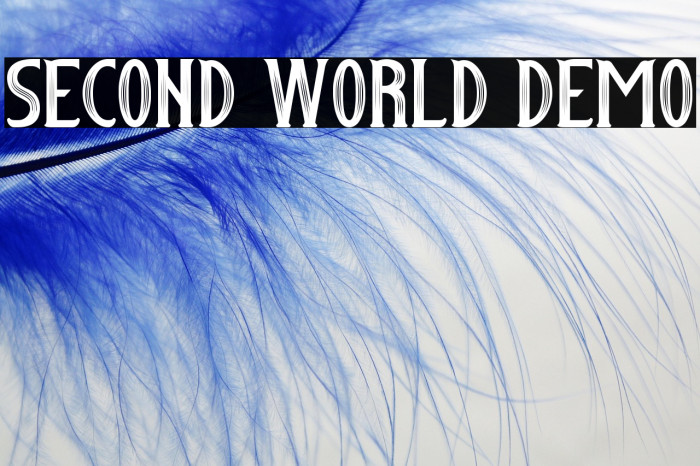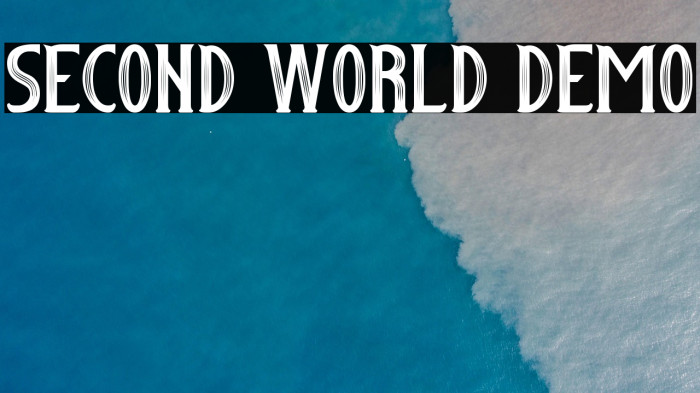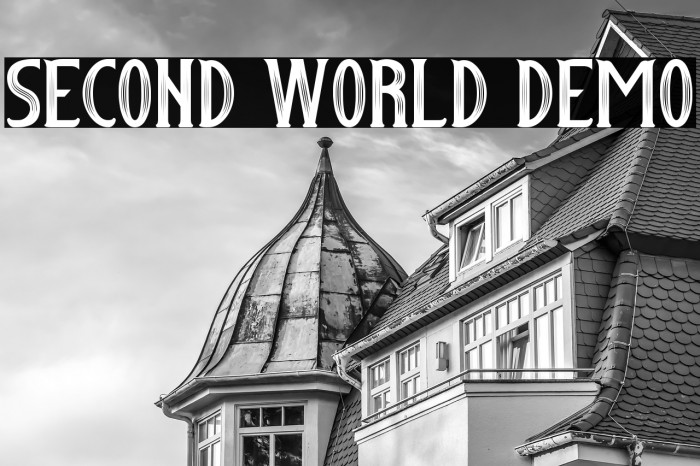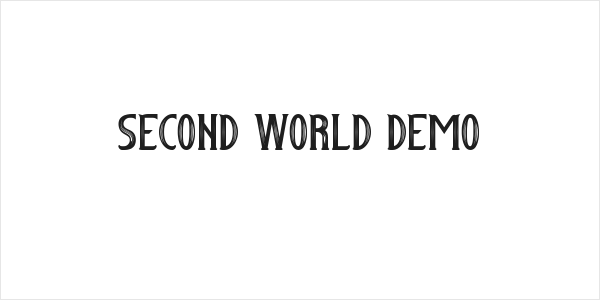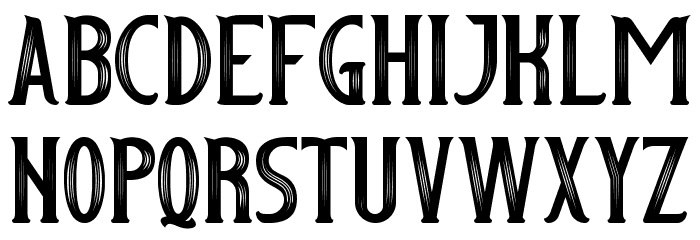
Second World Demo Font
Second World Demo Description
This font features a bold and decorative style, characterized by its intricate line work and unique flair. Each letter is designed with a series of vertical lines that create a textured appearance, giving the font a dynamic and eye-catching look. The uppercase letters are particularly striking, with their tall and narrow forms that convey a sense of elegance and sophistication. The font's design is reminiscent of vintage typography, making it ideal for projects that require a touch of classic charm. Its distinct style is suitable for headlines, logos, and other creative applications where a bold statement is needed.
| Proposed Projects | Ideal for vintage-themed designs, posters, logos, and branding materials. |